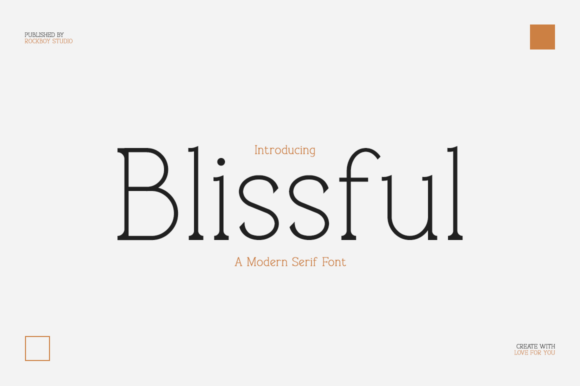
Introducing Blissful Font: The Elegant and Versatile Serif Font
In the world of typography, fonts play a crucial role in conveying the tone and personality of a brand or design. With thousands of fonts available, it can be overwhelming to choose the right one that suits your needs. However, if you’re looking for a font that exudes elegance, sophistication, and versatility, look no further than Blissful Font. In this article, we’ll dive into the features and benefits of Blissful Font, and explore why it’s an excellent addition to your typography arsenal.
What is Blissful Font?
Blissful Font is a beautifully crafted, thin lettered, and distinct serif font that is designed to elevate your designs to the next level. Its neat and clean style makes it suitable for a wide variety of designs, from luxury brands to creative projects. Whether you’re a graphic designer, a marketer, or a business owner, Blissful Font has the potential to become your go-to font, no matter the occasion.
Key Features of Blissful Font
- Elegant and Sophisticated: Blissful Font boasts a sleek and refined design that adds a touch of luxury to any project.
- Thin Lettered: The font’s thin lettering creates a clean and minimalist look that’s perfect for designs that require a subtle touch.
- Distinct Serif: The serif details in Blissful Font add a level of sophistication and elegance, making it ideal for high-end brands and designs.
- Versatile: Blissful Font can be used for a wide range of designs, including logos, headings, paragraphs, and more.
Why Choose Blissful Font?
With so many fonts available, it’s essential to choose one that meets your design needs and enhances your project’s overall aesthetic. Here are some reasons why Blissful Font stands out from the rest:
Reasons to Choose Blissful Font
- Improves Readability: Blissful Font’s clean and clear design ensures that your text is easy to read, making it perfect for body paragraphs and headings.
- Enhances Brand Identity: The font’s elegant and sophisticated design helps to create a strong brand identity that resonates with your target audience.
- Versatile and Adaptable: Blissful Font can be used for various design projects, from print materials to digital platforms.
- Unique and Distinctive: The font’s distinct serif details and thin lettering make it stand out from other fonts, ensuring your design doesn’t get lost in the crowd.
How to Use Blissful Font Effectively
To get the most out of Blissful Font, here are some tips on how to use it effectively in your designs:
Tips for Using Blissful Font
- Pair it with Other Fonts: Experiment with pairing Blissful Font with other fonts to create a unique and visually appealing design.
- Use it for Headings and Titles: Blissful Font is perfect for headings and titles, where its elegant design can make a significant impact.
- Adjust Font Size and Weight: Experiment with different font sizes and weights to create visual hierarchy and add emphasis to specific design elements.
- Consider Line Spacing and Kerning: Pay attention to line spacing and kerning to ensure your text is easy to read and visually appealing.
In conclusion, Blissful Font is an exceptional serif font that offers elegance, sophistication, and versatility. Its neat and clean style makes it suitable for a wide range of designs, from luxury brands to creative projects. With its distinct serif details, thin lettering, and excellent readability, Blissful Font has the potential to become your go-to font for all your design needs. So why not give it a try and experience the bliss of creating stunning designs with Blissful Font?